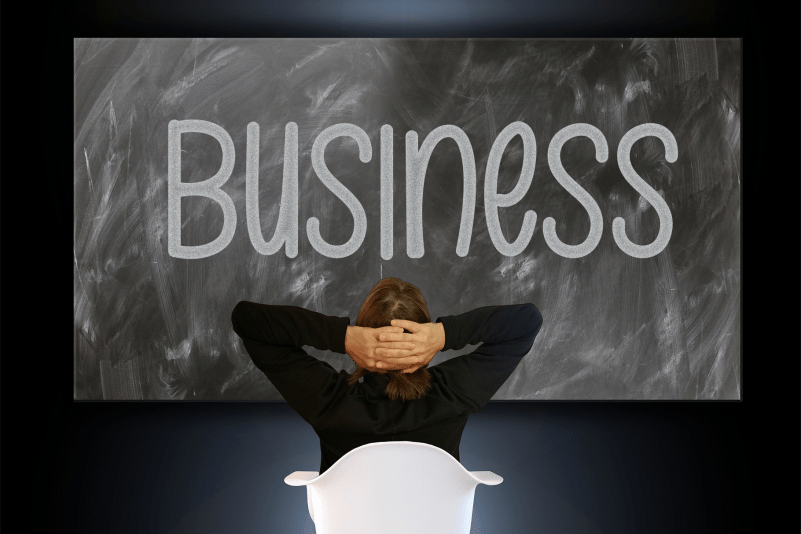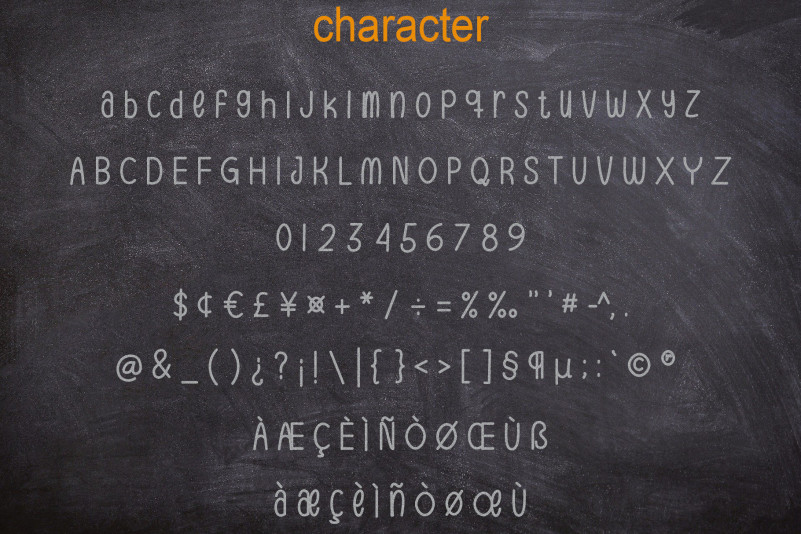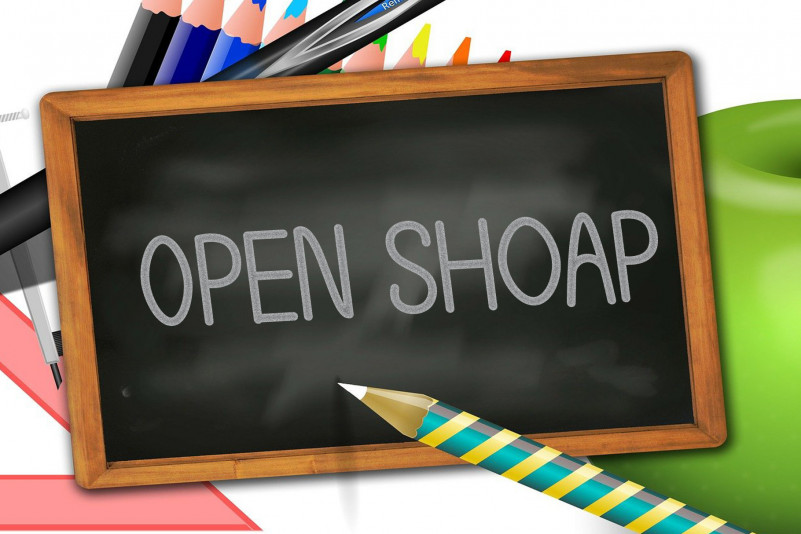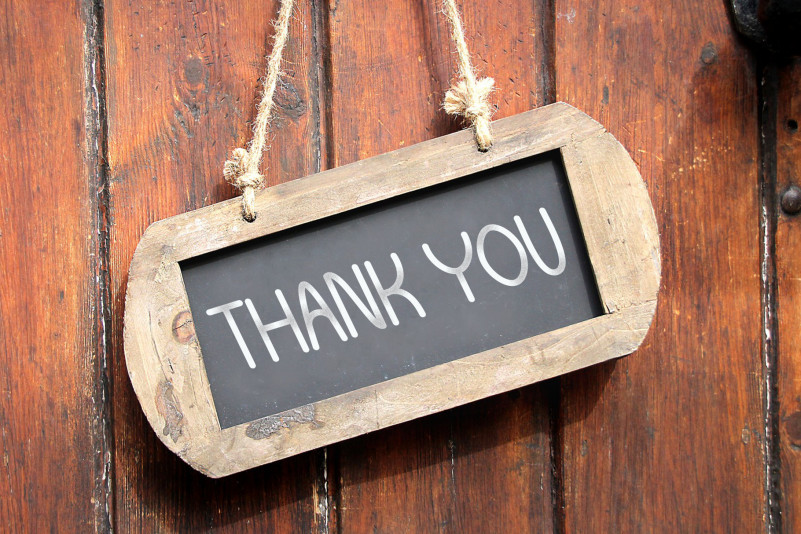
California Font
California Display Font
This is a simple and natural handwritten font. Add this clean and adaptable font to your fonts’ library, and you will use it on every possible occasion.